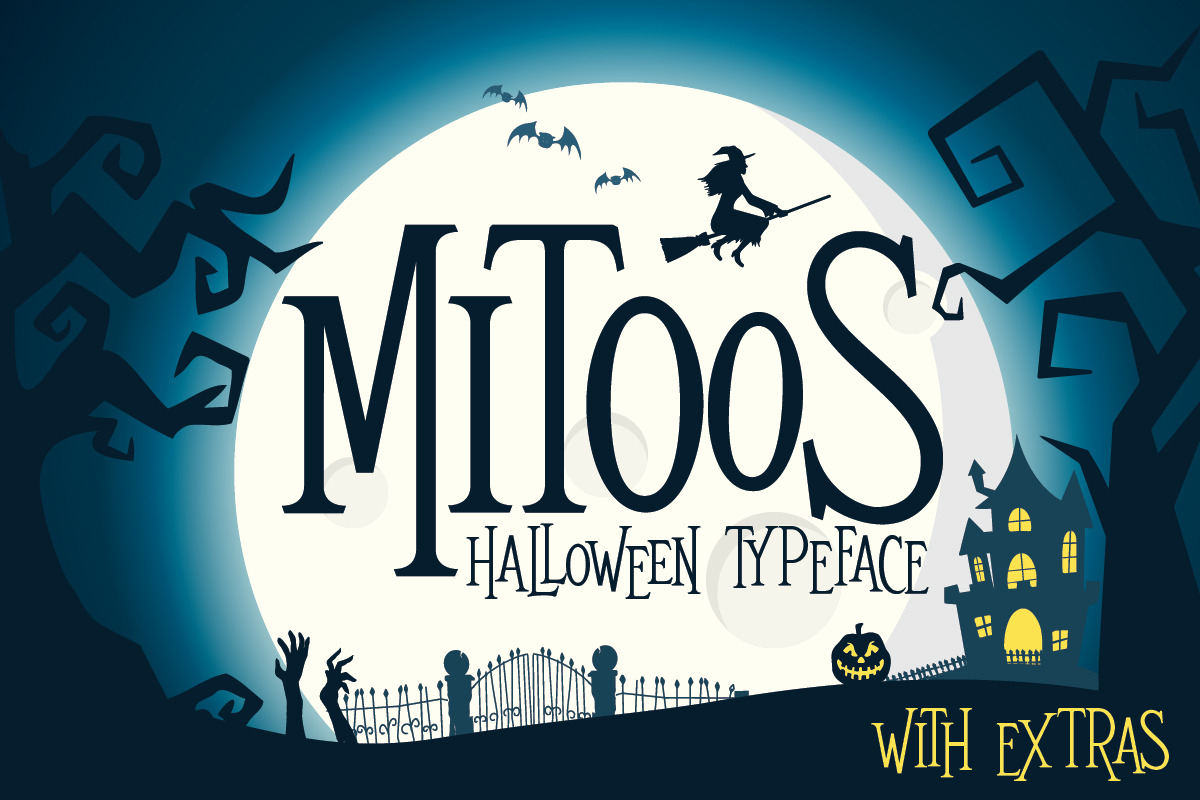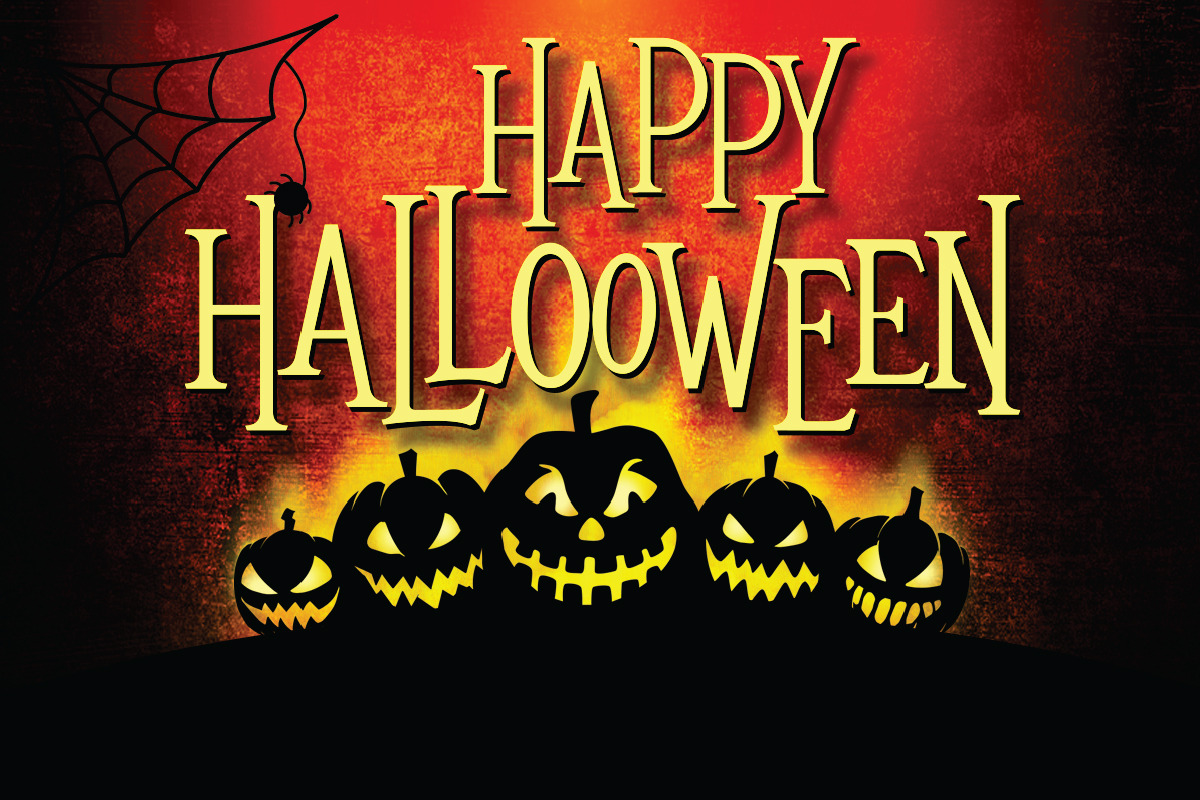
Mitoos Halloween font
including 100+ Graphic elements: there are 100+ halloween graphic elements when you download this font, so of course you can arrange all the elements into a perfect design,